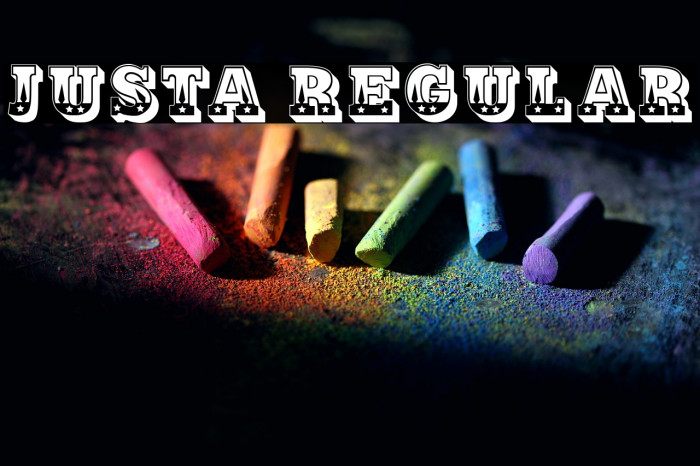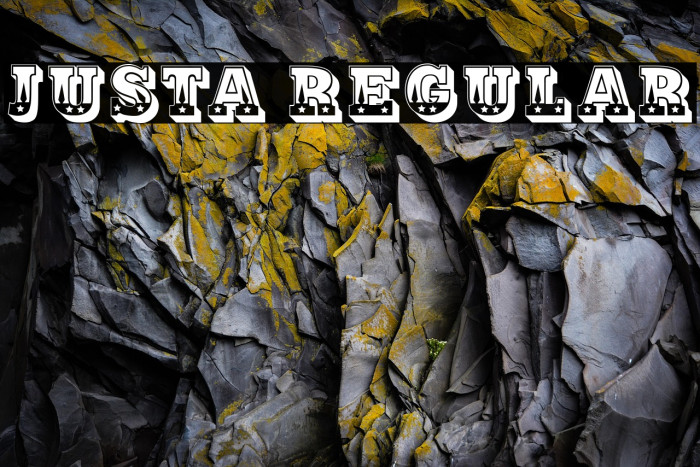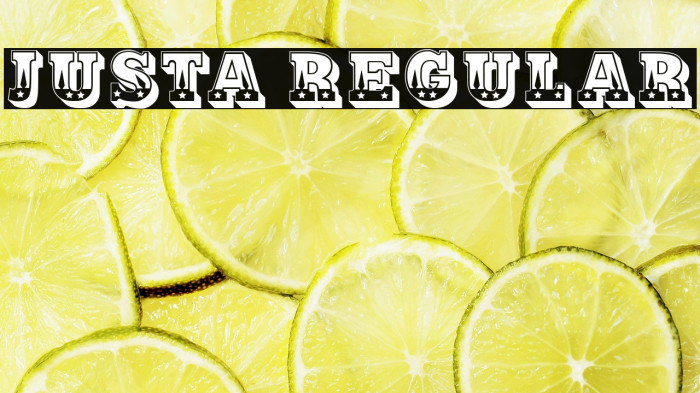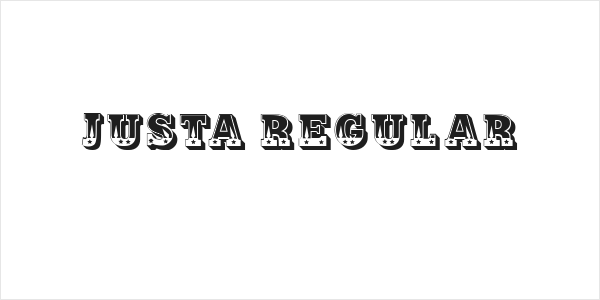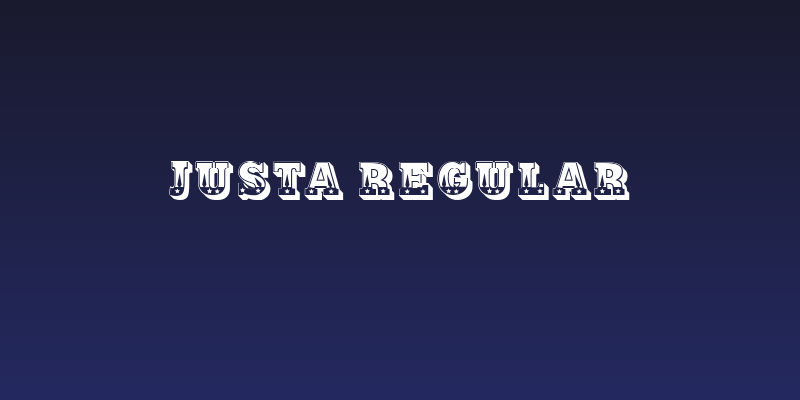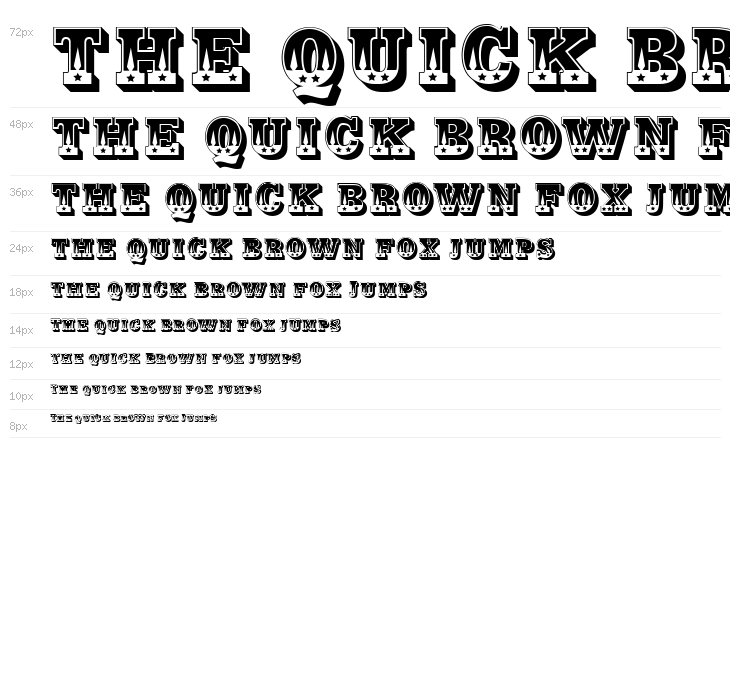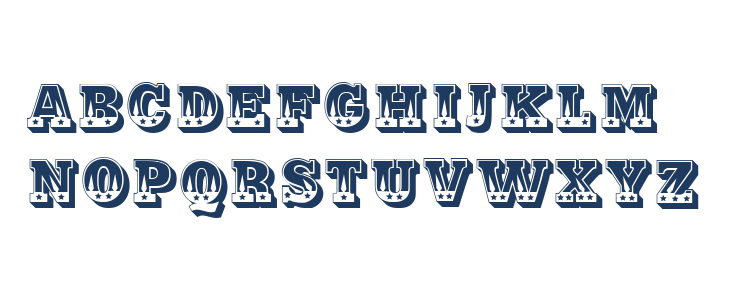
Justa Regular Font
Justa Regular Description
This font features a bold, decorative style with a strong presence. Each character is adorned with star-shaped cutouts, adding a playful and eye-catching element. The letters are outlined with a thick black border, enhancing their visibility and impact. The interior of the characters is filled with a contrasting white, creating a striking visual effect. This font is ideal for designs that require a bold statement, such as posters, banners, or event promotions. Its unique style makes it suitable for projects that aim to capture attention and convey a sense of fun and excitement.
| Proposed Projects | Ideal for posters, banners, event promotions, and any design needing a bold statement. |